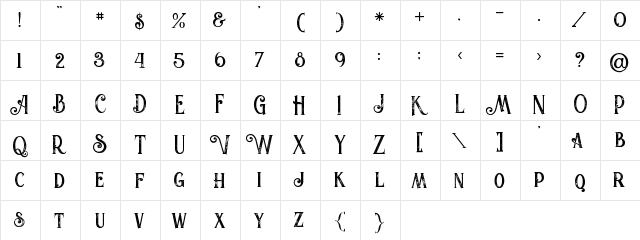
Valeria bold grunge Regular
Design Context for Valeria bold grunge Typeface
Valeria bold grunge embraces imperfection — its rough, textured character adds raw authenticity to designs that want to feel lived-in and unconventional.
A strong fit for alternative music projects, graffiti-adjacent design, and anything that deliberately resists polish.
Pro Tip: Use Valeria bold grunge at larger sizes where the texture and irregularity of each letterform can be clearly seen — it loses its character at small sizes.